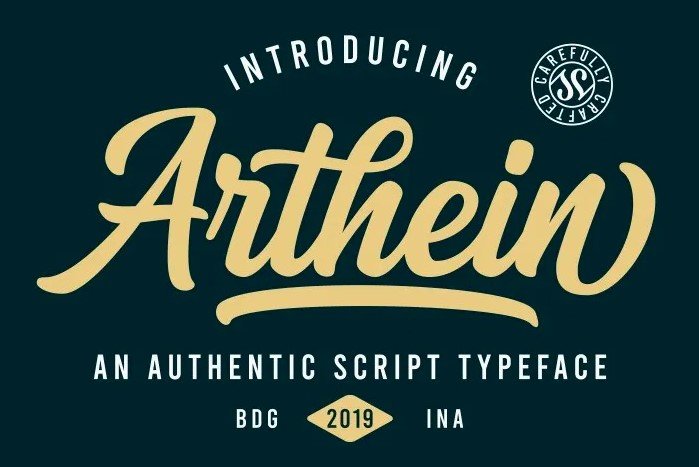
Hey there, today we are offering the most fantastic and distinctive typeface that can meet all your needs. Introducing Arthein Bold Script Font, a beautiful, casual, and straightforward typeface perfect for designing special projects. This font comes with great stylistic sets to help you create exceptional designs.
The typeface has opentype features that can easily give you the opportunity to designs the best projects for your commercial and paid designs. It has more than 200 glyphs and characters set.
You can use these hand-lettering styles to put an attractive touch into your design. It has lots of styles and supports multilingual designs in all languages. Also, it works best with the combination of playfair display font.
The Arthein Bold Script Font is the famous and amazing typeface which was product of Sibelumpagi Studio.